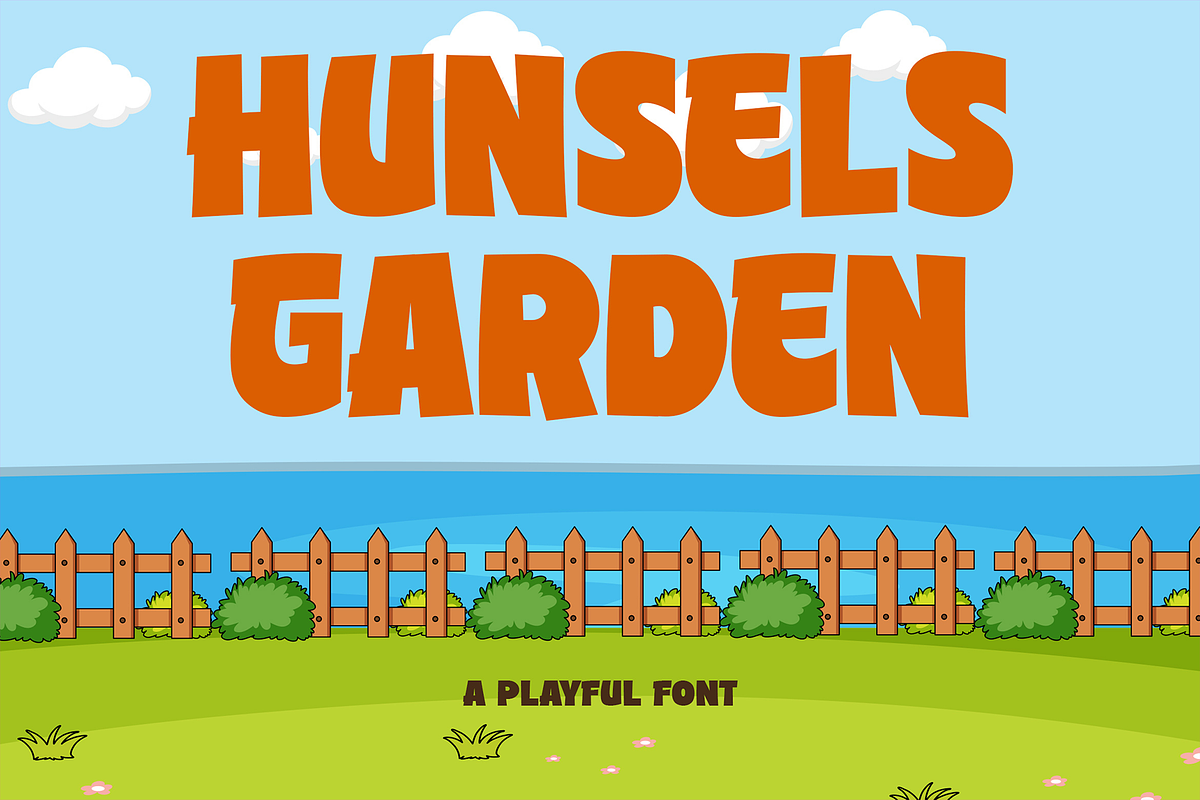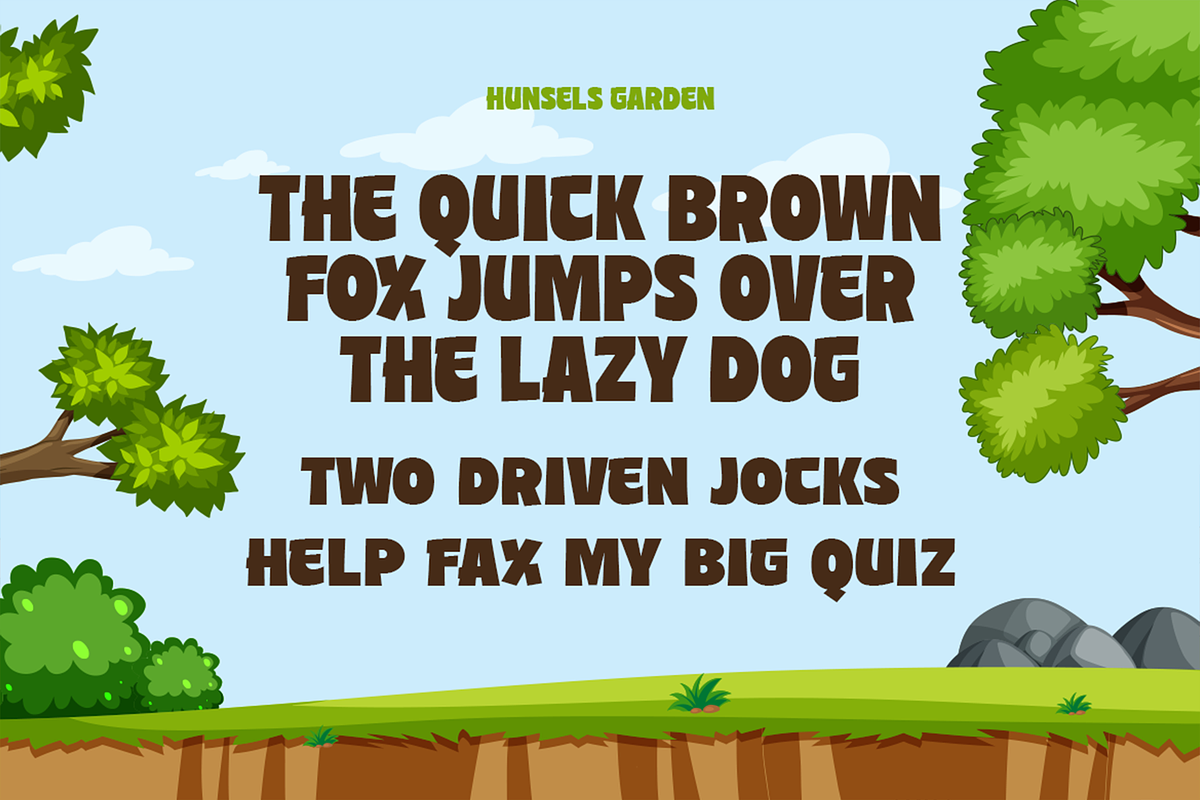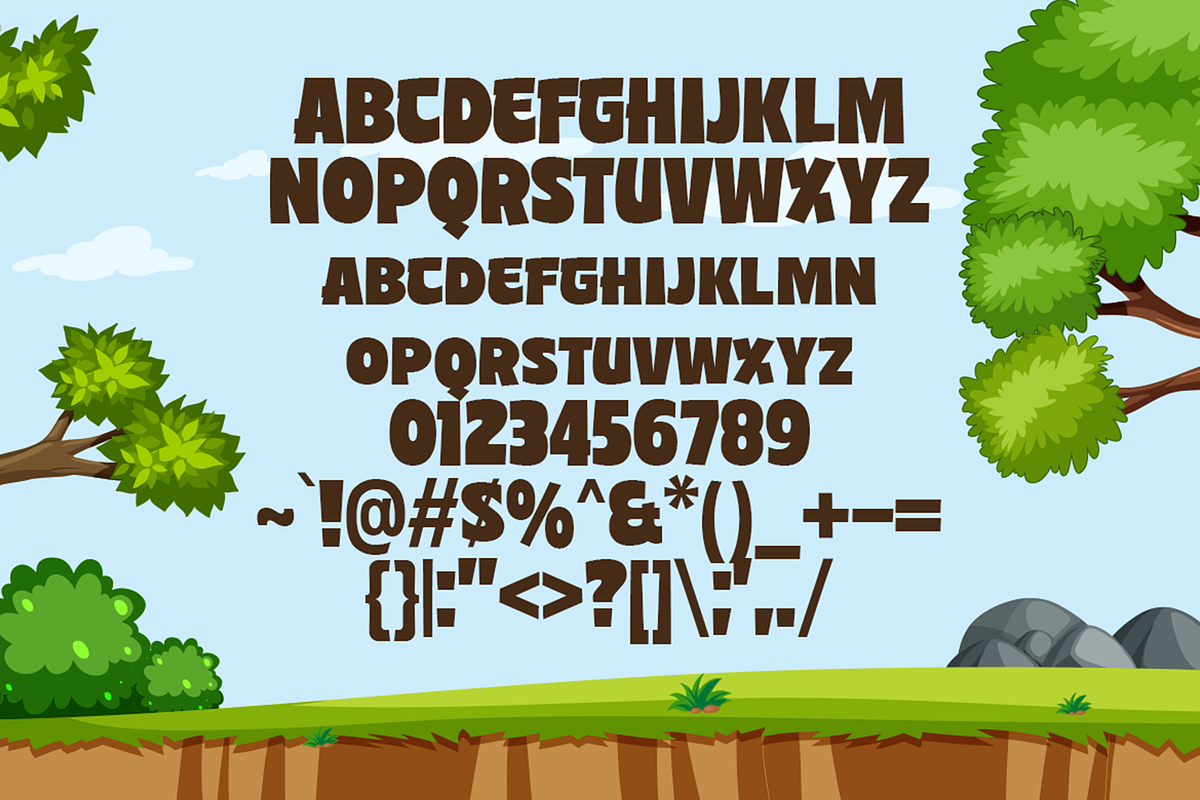
Hunsels Garden – A Playful Fonts
Introducing Hunsels Garden - Unleash Your Playful Side! Capture the essence of joy and bring your designs to life with our enchanting font, Hunsels Garden let your creativity run wild as you dive into a world of playful elegance, where every letter dances with delight.
Whether you're crafting invitations for a children's party, designing a captivating logo, or adding a dash of fun to a brand, Hunsels Garden adapts effortlessly to any context. It's the perfect choice for bringing joy to websites, packaging, merchandise, and so much more!